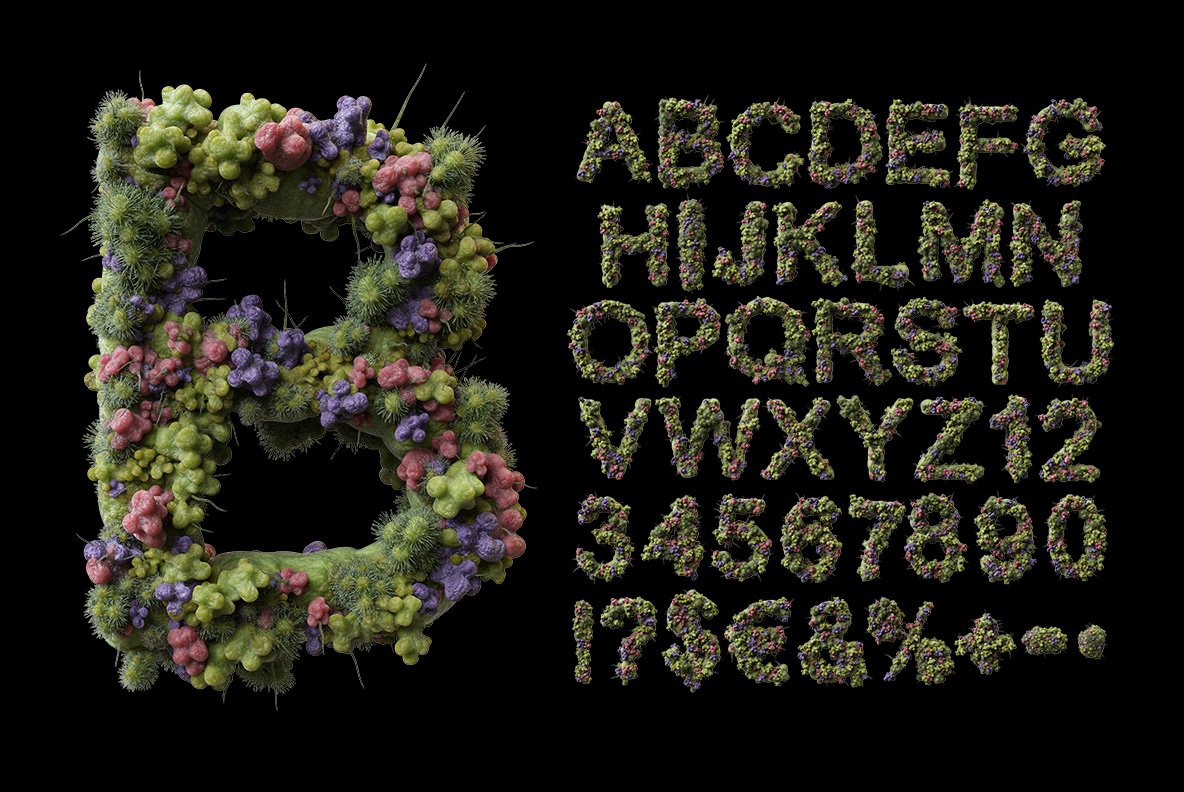
Virus Font. It’s Handmade Font Epidemic. Infective OpenType Alphabet
Virus Font builds each letter from a crowd of lumpy globules in olive, dusty pink and violet, with fine hairy spikes bristling off the surface. The condensed shapes underneath keep whole words readable while the texture does the damage. Made for science publishing, horror, biotech and album artwork.
Virus Font Grows a Colony Along Every Letter
The strokes are built from hundreds of small lumpy globules pressed together. Olive green dominates, then dusty pink and violet clumps break it up. Fine hairy spikes bristle off the surface too, which is what makes it unsettling. Because the colony crowds the outline, the edges stay ragged and organic. So the Virus Font never quite sits still on a page.
Ugly in the Very Best Possible Way
Look closely and the texture lands somewhere between moss, mould and coral. Meanwhile the letterforms underneath are a plain condensed sans, which keeps words legible. Tones stay muted, since nothing here is meant to look cheerful. Numerals, currency signs and punctuation are all infected as well. On black the colour lifts, though on yellow or blue it turns genuinely lurid.
Animated preview of the Virus Font showing letters grown from lumpy green colonies
Where the Virus Font Does Its Work
A dark hardback shows one letter as pure texture, so it needs no illustration. Then a blue book cover runs a title under a single enormous glyph. There is a yellow card as well, plus a magazine spread and a wrapped white cover. In addition, a macro crop proves the detail survives at poster size. Naturally, science publishing, horror, club flyers, biotech and album art all suit it.
Title card for the Virus Font with the word VIRUS grown from green and violet clumps
Large colony letter B of the Virus Font beside the full character chart on black
Macro close-up of the Virus Font showing lumpy globules and fine hairy spikes
Dark book cover with one large letter grown from Virus Font colonies
Yellow hardback and open spread lettered in the Virus Font
Blue book cover with a huge Virus Font letter and a title beneath it
Wrapped white cover with a headline set in the Virus Font above a microbe photograph
Virus Font letters A to C and numerals one to three on a transparent background